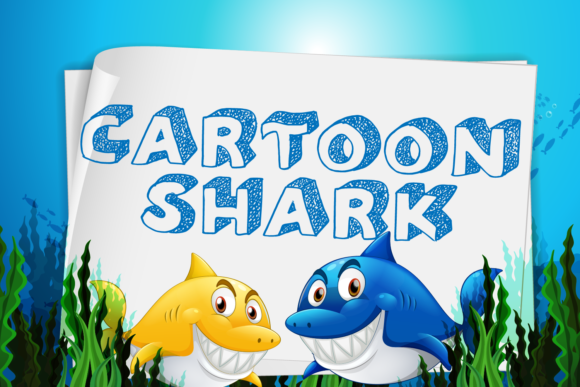
Cartoon Shark Font: The Perfect Choice for Playful Designs
Are you looking for a font that can add a touch of playfulness and joy to your designs? Look no further than the Cartoon Shark font. This cute, jolly, and bubbly display font is perfect for cartoon-related designs, children’s games, and any creation that requires a lovely touch.
What is Cartoon Shark Font?
Cartoon Shark is a display font designed to bring a smile to your face. Its cute and bubbly appearance makes it perfect for designs that require a playful touch. The font is well-suited for a variety of applications, including cartoon-related designs, children’s games, and more.
Key Features of Cartoon Shark Font
- Cute and Playful Design: Cartoon Shark font has a unique and adorable design that is sure to capture the attention of your audience.
- Display Font: This font is specifically designed as a display font, making it perfect for headlines, titles, and other display purposes.
- Bubbly and Jolly: The font has a bubbly and jolly appearance that can add a touch of joy to your designs.
- Versatile: Cartoon Shark font can be used for a variety of applications, including cartoon-related designs, children’s games, and more.
Ideas for Using Cartoon Shark Font
Cartoon Shark font is a versatile font that can be used in a variety of ways. Here are some ideas to get you started:
- Cartoon-Related Designs: Use Cartoon Shark font to create fun and playful cartoon-related designs, such as character names, titles, and more.
- Children’s Games: This font is perfect for children’s games, including game titles, character names, and more.
- Kids’ Party Invitations: Use Cartoon Shark font to create fun and playful kids’ party invitations that are sure to delight.
- Branding and Logo Design: This font can also be used for branding and logo design, especially for companies that cater to children or families.
Benefits of Using Cartoon Shark Font
There are many benefits to using Cartoon Shark font in your designs. Here are a few:
- Adds a Playful Touch: Cartoon Shark font can add a playful touch to your designs, making them more engaging and fun.
- Easy to Read: Despite its playful design, Cartoon Shark font is easy to read, making it perfect for display purposes.
- Versatile: This font can be used for a variety of applications, making it a great addition to your font library.
- Unique: Cartoon Shark font has a unique design that is sure to stand out from more traditional fonts.
Tips for Using Cartoon Shark Font
Here are a few tips for using Cartoon Shark font in your designs:
- Use it for Display Purposes: Cartoon Shark font is specifically designed as a display font, so use it for headlines, titles, and other display purposes.
- Pair it with Other Fonts: Consider pairing Cartoon Shark font with other fonts to create a unique and visually appealing design.
- Experiment with Colors: Don’t be afraid to experiment with different colors to find the perfect combination for your design.
- Keep it Simple: While Cartoon Shark font is playful and fun, it’s still important to keep your design simple and easy to read.
In conclusion, Cartoon Shark font is a cute, jolly, and bubbly display font that is perfect for cartoon-related designs, children’s games, and any creation that requires a lovely touch. Its unique design and versatility make it a great addition to your font library. With its playful appearance and easy-to-read design, Cartoon Shark font is sure to bring a smile to your face and engage your audience.